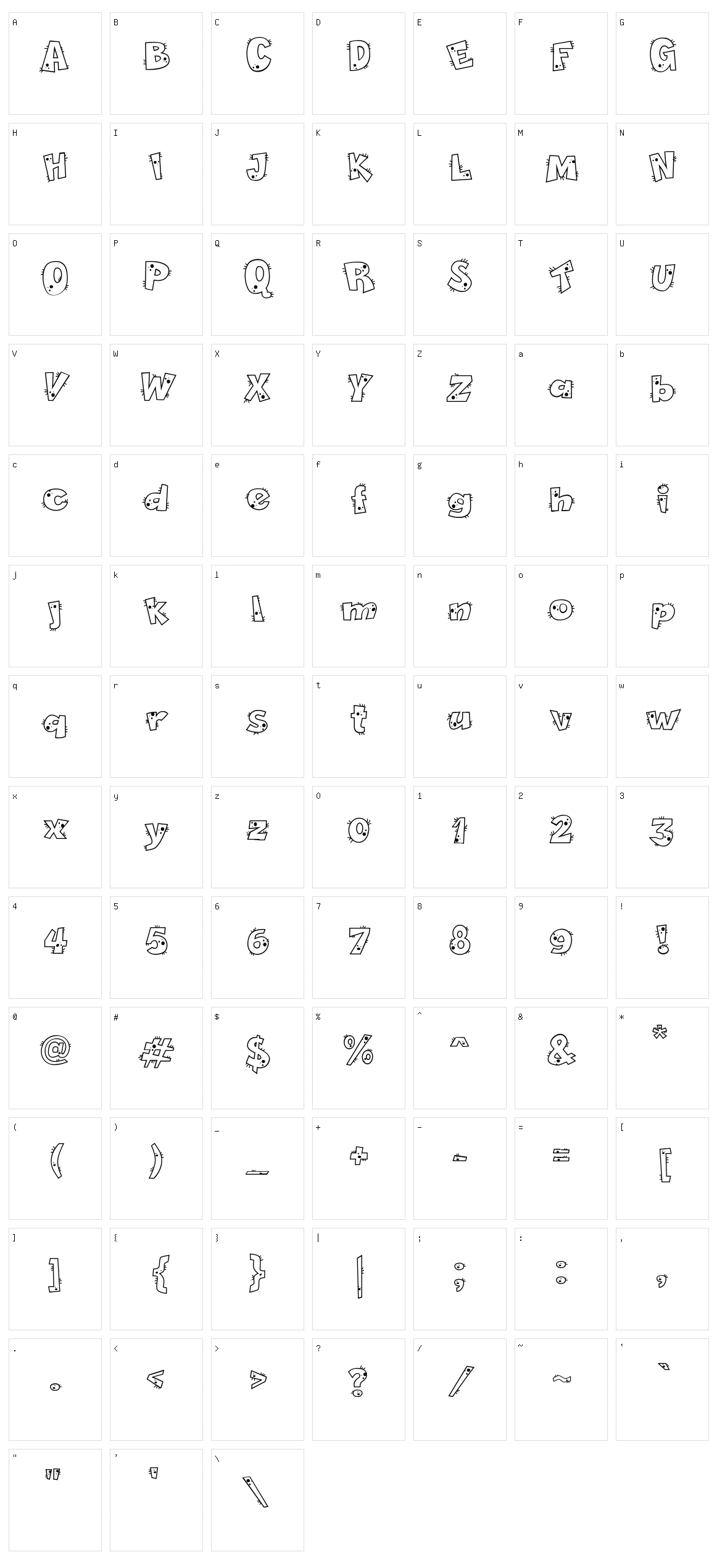
The free font Pet Shop is carefully designed by Galdino Otten Fonts, showcasing a thoughtful balance of creativity and usability and falls under the Cartoon font style. When you download the ZIP file, it contains only 273.61 KB of font files, making it lightweight and quick to download. Please review the license details below to understand permitted usage and distribution rights. If license information is not available, we recommend using this font for personal projects only or contacting the author directly for commercial usage permissions.